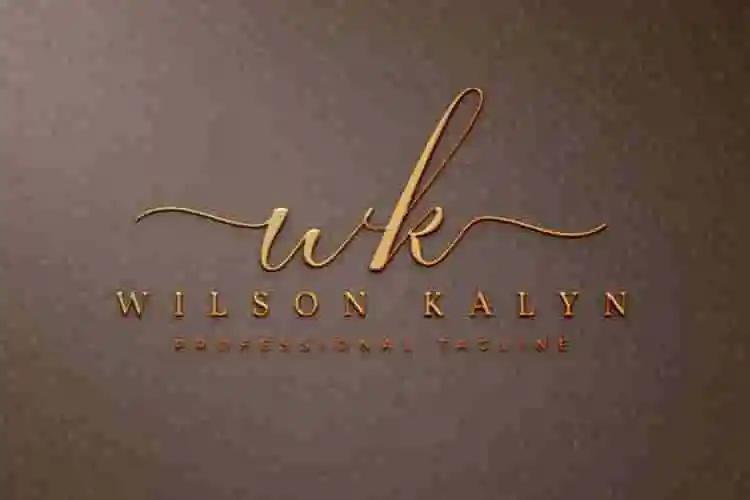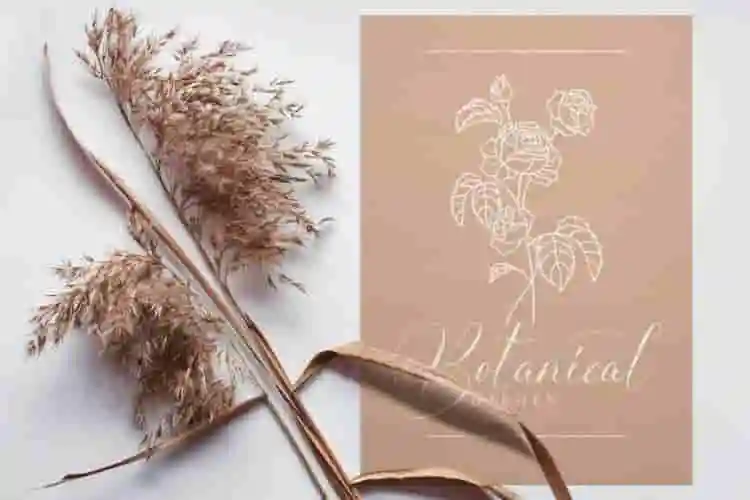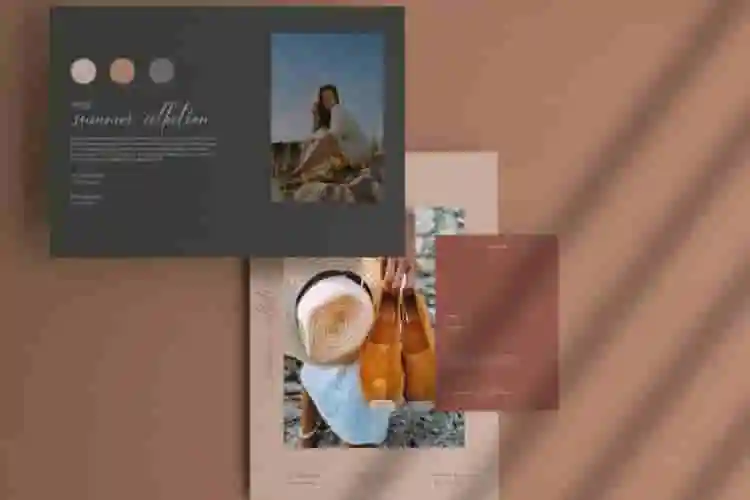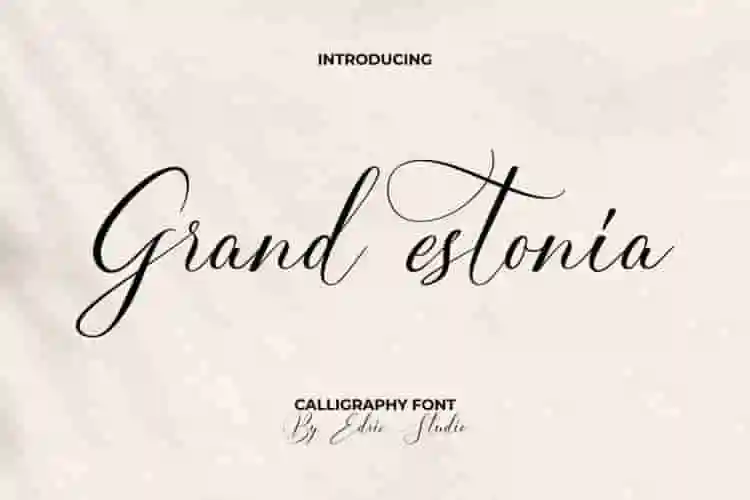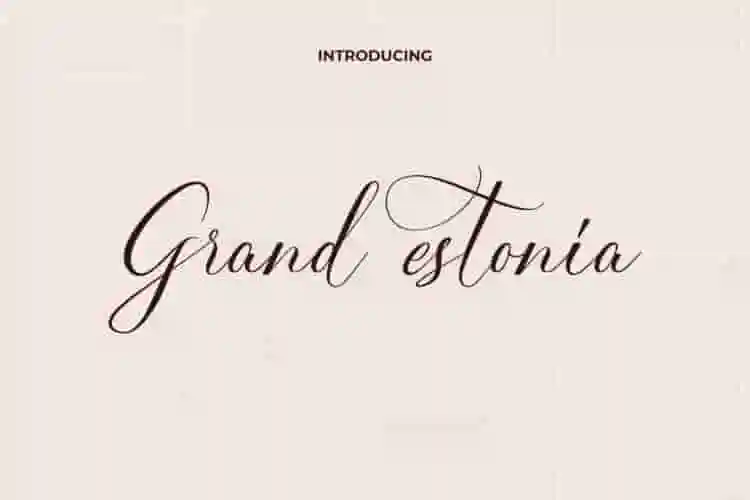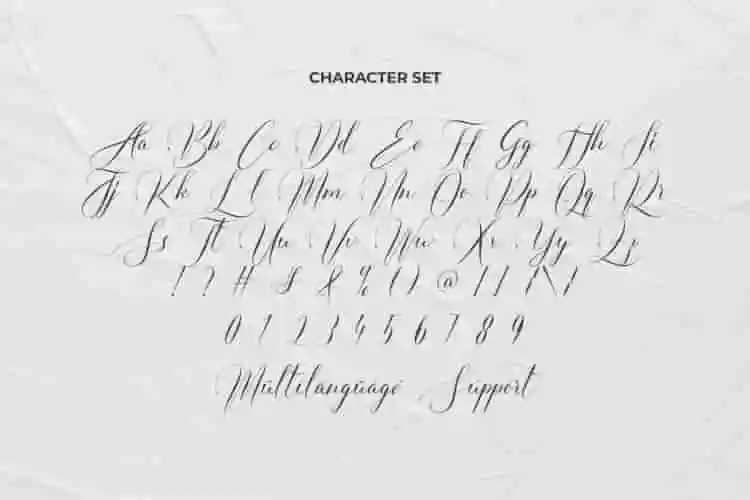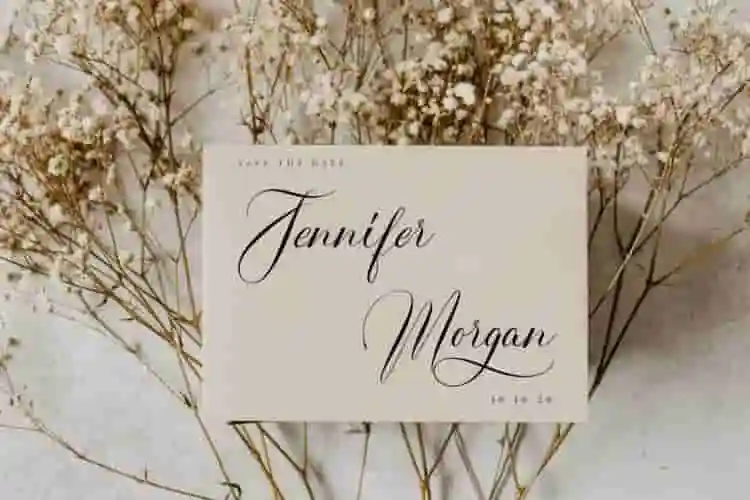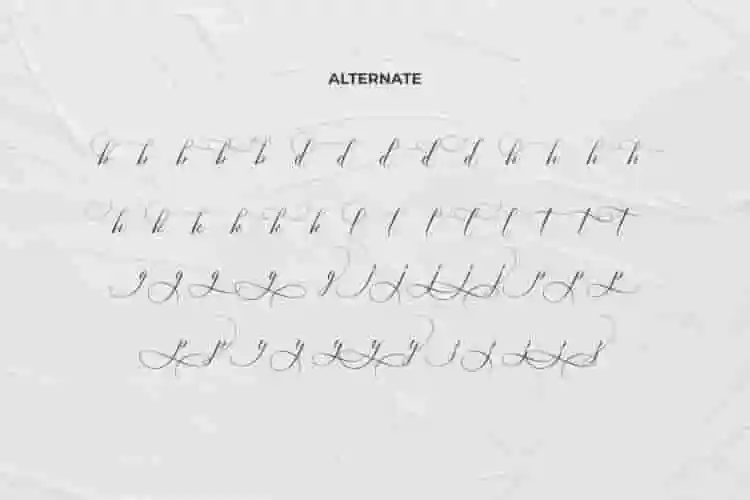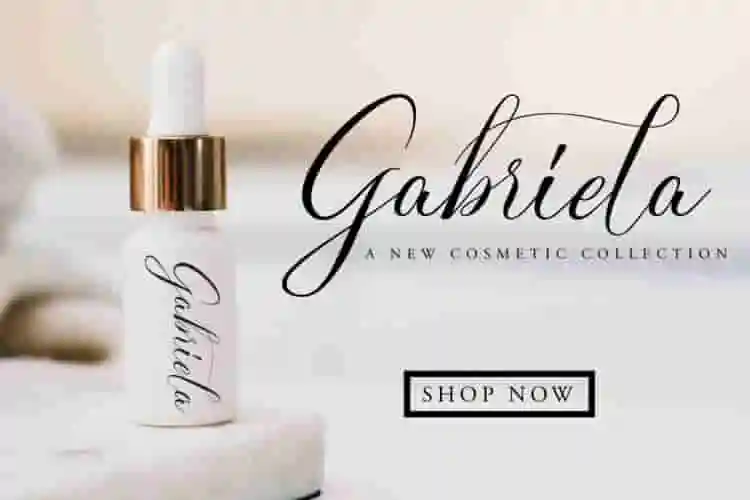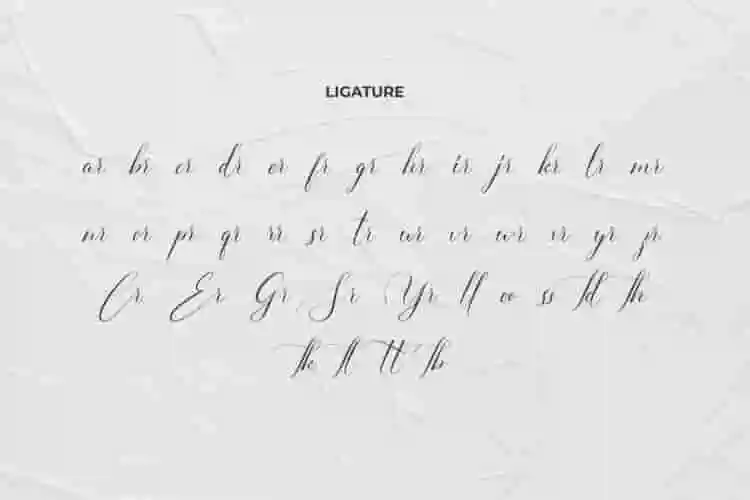
Grand Estonia Calligraphy Font
Grand Estonia Font is a calligraphy font script with stunning handwriting style, handcrafted from our Studio here in Indonesia. Grand Estonia Calligraphy Font is an original handwritten script typeface with unique look. It has a stunning characters set, perfectly managed with well spaced and kerning. The theme style of this font is elegant,  sophisticated, stylish, calligraphy style.
Grand Estonia Font has stunning calligraphic character style. The font will be great for any projects (with extended license) including : branding, logo, stationery, business card, signage, flyer, brochure etc. Almost all industries will be match for this typeface: wedding, events, real estate, architect, florist, gardening, makeup artist, travel, hotel, musician etc
Introducing Grand Estonia Calligraphy Font, a luxurious script font that combines the classic beauty of calligraphy with a modern, flowing touch. Designed to bring sophistication and romance to any project, Grand Estonia is perfect for those who want their words to make an unforgettable impression.
Whether you’re working on wedding invitations, branding, logo designs, social media graphics, product packaging, greeting cards, or elegant signage – this font delivers beauty in every stroke.
With its delicate swashes, smooth curves, and high-contrast lines, Grand Estonia brings a handcrafted feel
• Full set of uppercase & lowercase letters